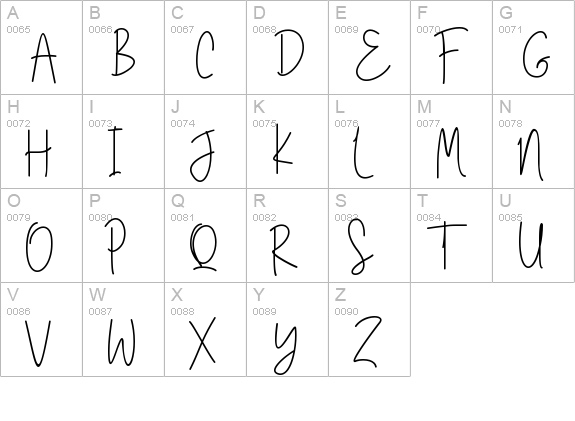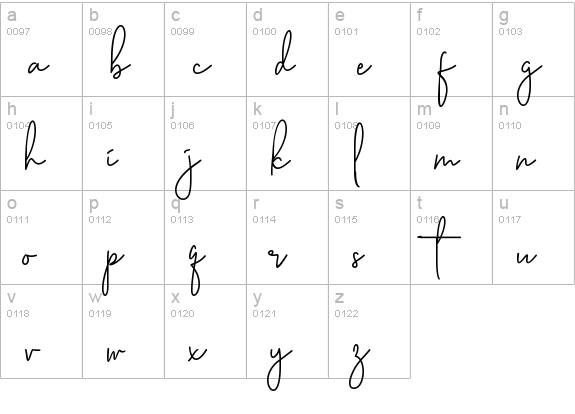
De'Consultant Font Details
De'Consultant is a free for personal use font in the Script > Handwritten category, designed by Yusron Billah. It has been downloaded 433 times and is available for Windows, Mac and Linux.
De'Consultant font is a modern and stylish typeface that exudes elegance and sophistication. With its sleek lines and unique letterforms, this font is perfect for adding a touch of class to any project. Whether you are designing a logo, creating a branding package, or working on a marketing campaign, De'Consultant font will make your text stand out.